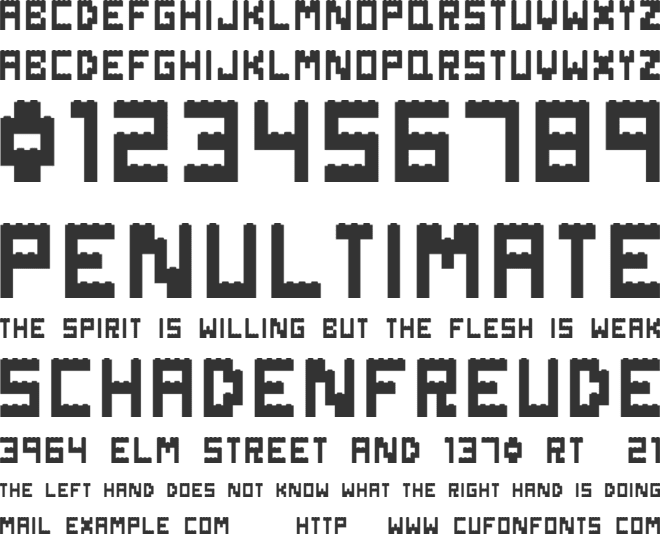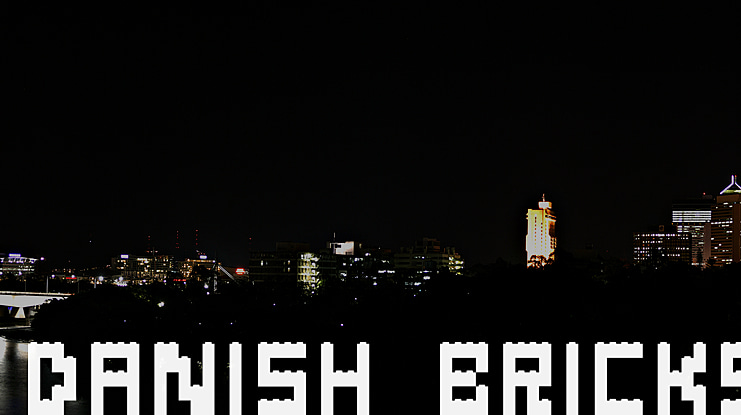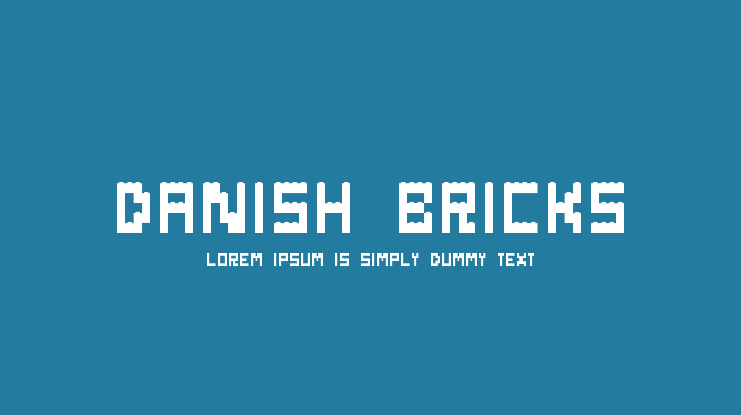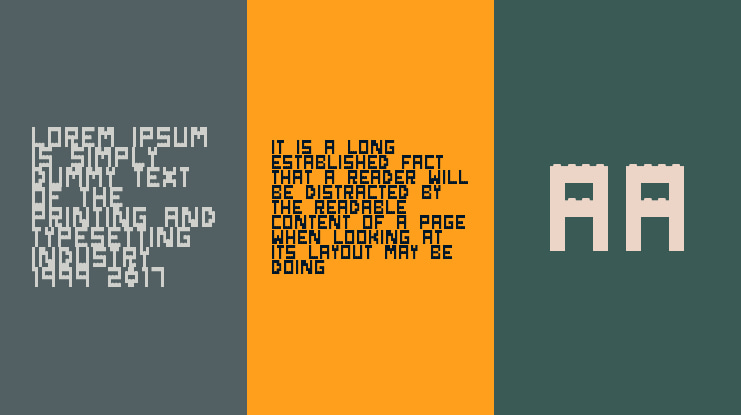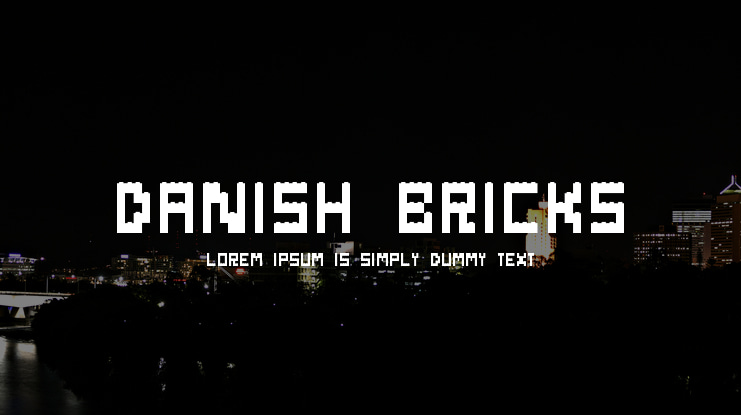
Danish Bricks Font
Rafael Hoffmann
Danish Bricks is a decorative font inspired by the famous "Danish bricks to assemble", also known as LEGO :)
All characters are inspired in ways that really can be assembled with bricks and stay mounted without assistance.